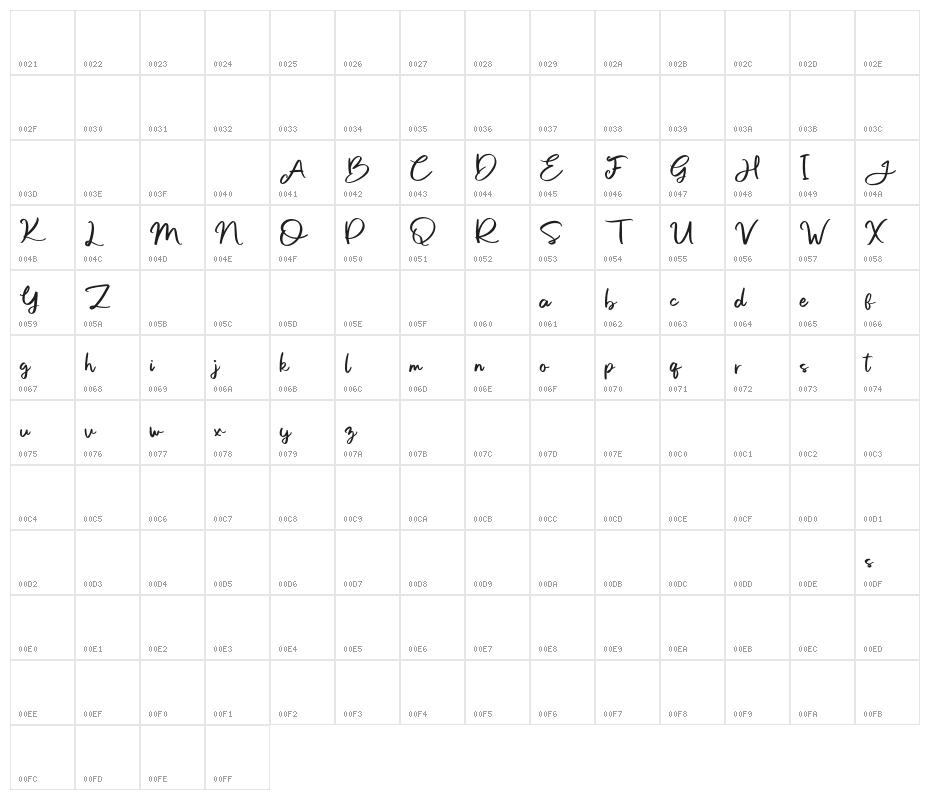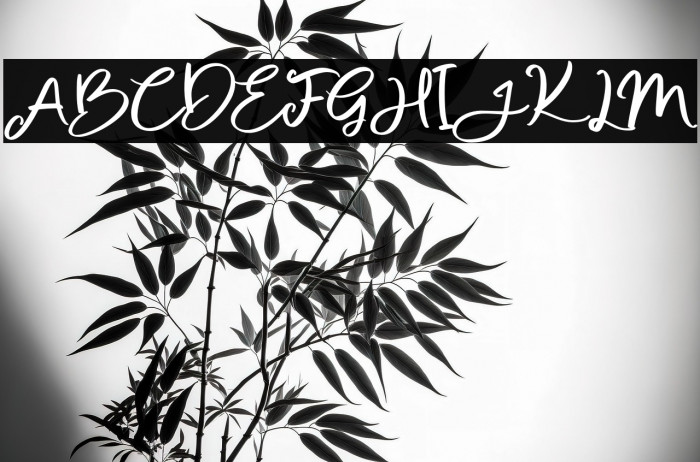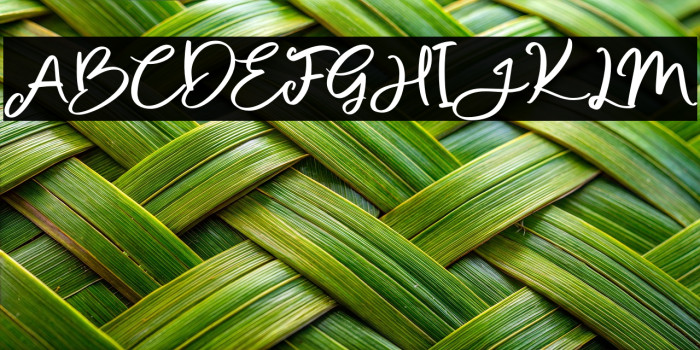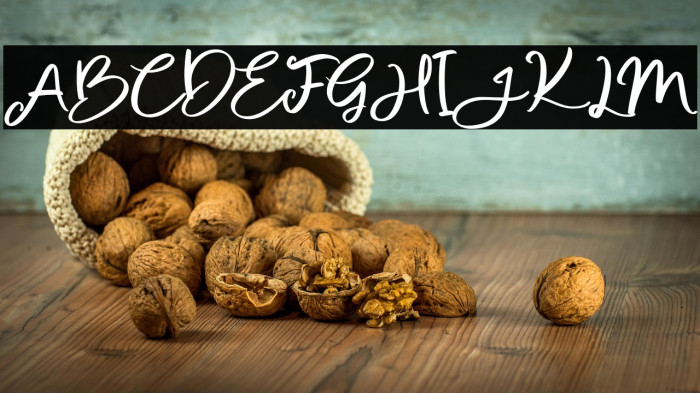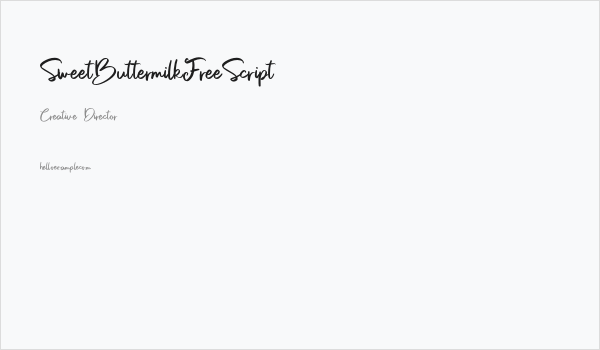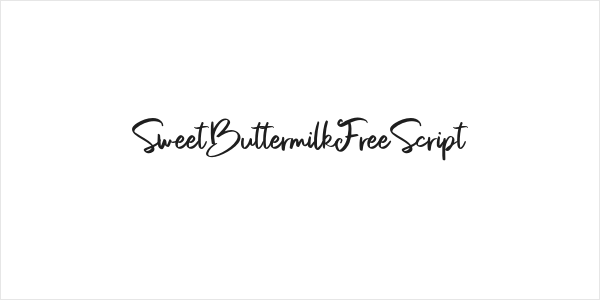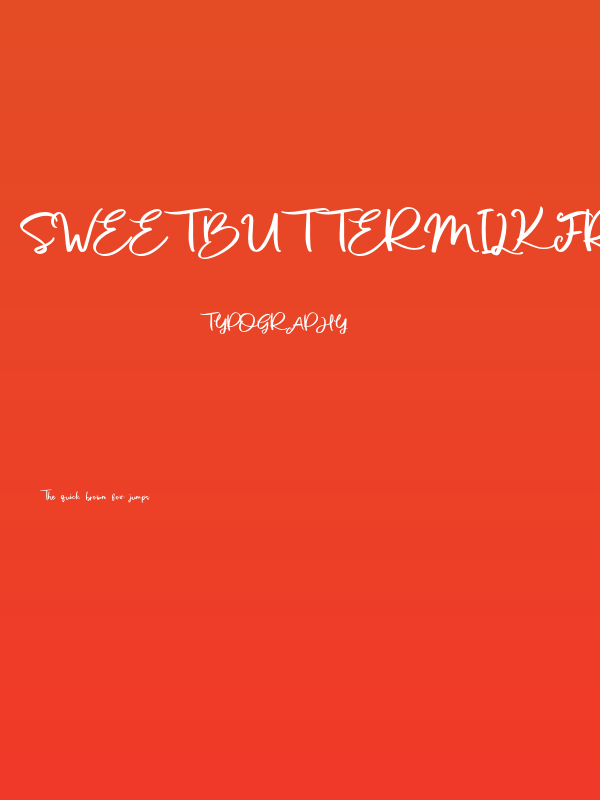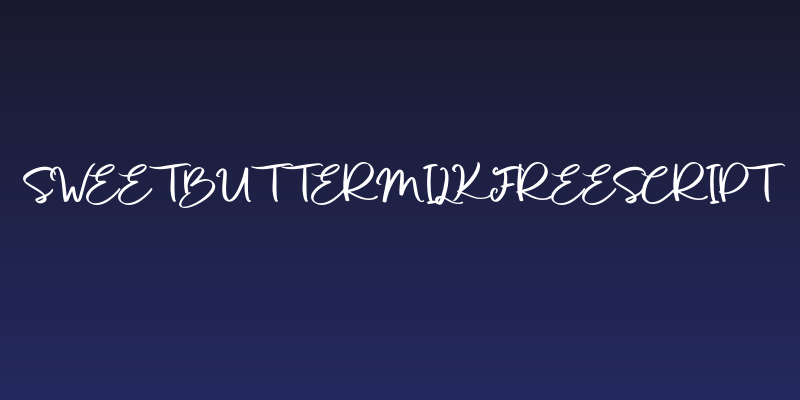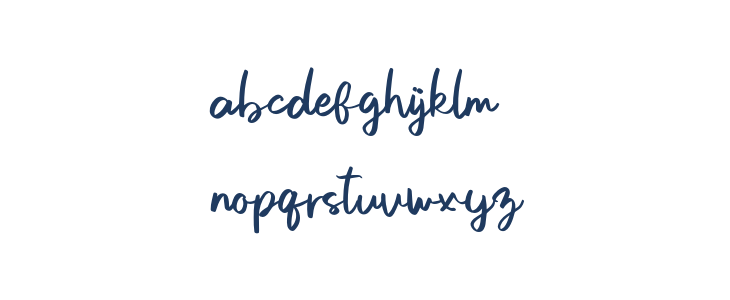
SweetButtermilkFree-Script Font
SweetButtermilkFree-Script Description
This font features a charming and fluid script style, characterized by its elegant, flowing curves and smooth connections between letters. The uppercase letters are bold and slightly exaggerated, giving a sense of sophistication and flair. The lowercase letters maintain a consistent flow, with rounded edges and a playful yet refined appearance. The overall design is reminiscent of hand-lettered calligraphy, making it ideal for adding a personal touch to any project. The font's legibility is enhanced by its balanced proportions and clear character shapes, making it suitable for both display and decorative purposes.
| Use Case | Logos, Headlines, Invitations |
| Proposed Projects | Ideal for wedding invitations, greeting cards, branding, and logo design. |